Neville Brody’s list of professional accomplishments is both long and eclectic. He is best known for his work in the music industry, designing iconic record covers for bands such as Depeche Mode, 23 Skidoo and Cabaret Voltaire.
Brody’s experience makes him the ideal candidate for designing and implementing unique typefaces. He recently turned his attention to the England Women’s soccer team – commonly referred to as the Lionesses – partnering with Nike to create a unique font for display on their 2023 kits.
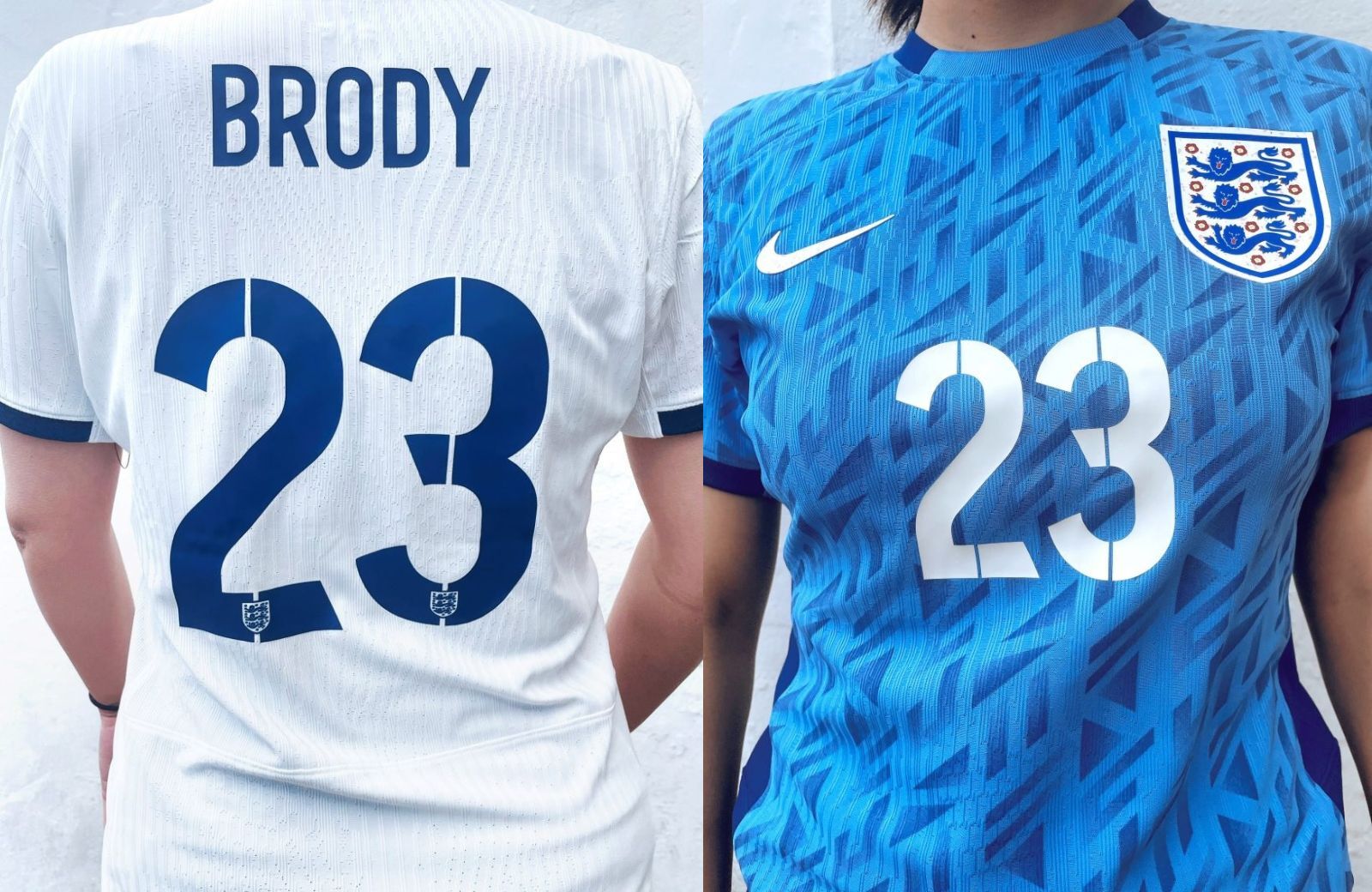
The core ambition of Brody’s typeface was to create something adventurous without compromising on readability. The clean-cut stencil lines separating the letters make the font feel distinct while emphasizing efficiency. The geometric curves and intelligent use of negative space make the design more legible—vitally important when trying to identify a player during a fast-paced match.
Brody based his design on the England men’s team kits, which he created in 2014 before the World Cup. He reduced the height of the lettering and made the font less bold to accommodate the different sizes and styles of the kits.
The color choice is the least surprising element of Brody’s typeface. The font is, after all, designed to be displayed on a soccer kit. Blue letters adorn the all-white home shirts. White letters, naturally, accompany the blue away kit.
Brody’s typeface bridges the gap between style and substance. It’s at once functional and surprisingly expressive. Its unique qualities make the England women’s kits notably distinct, but the typography always retains the easy-to-read attributes we’ve come to expect from a high-quality sports jersey.